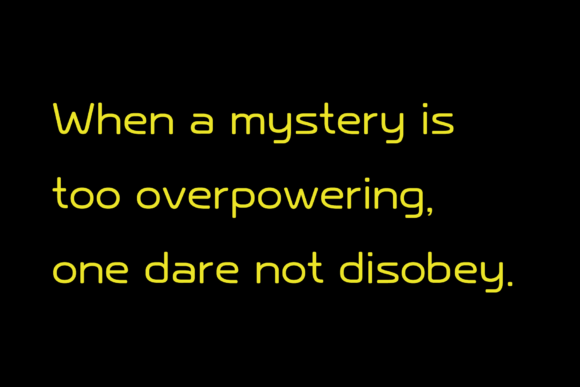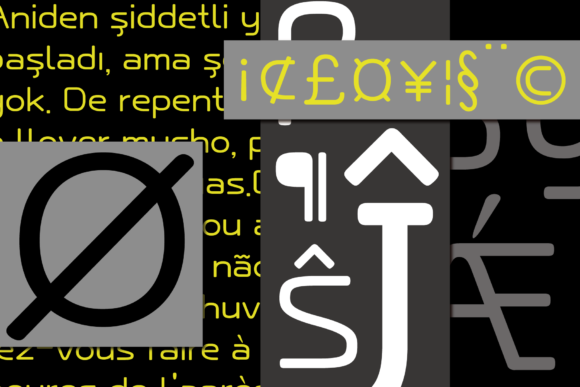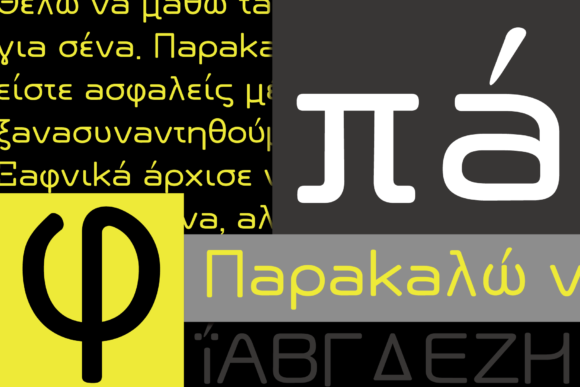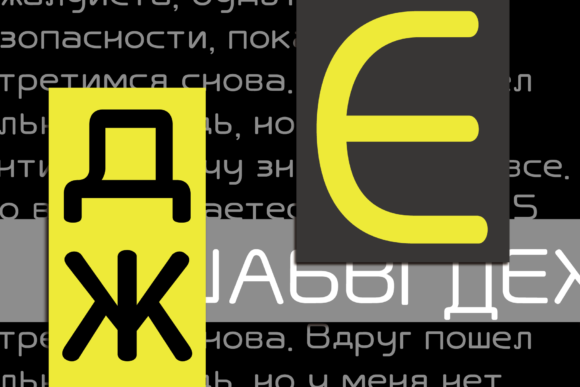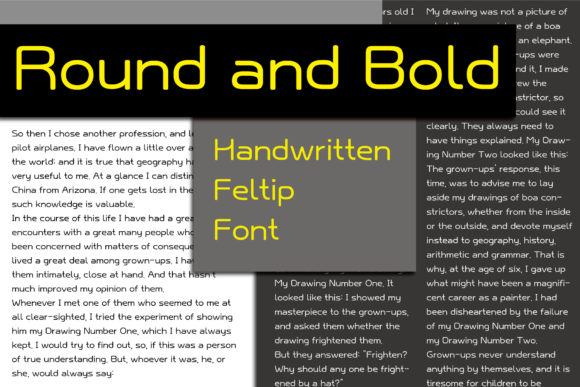
Discover the Story Behind HU Big Round Font
Have you ever stopped to think about the fonts that bring your digital messages to life? The way a font’s curves and lines can convey tone and personality, even when the words themselves are just a few simple characters. For designers, the right font can be the difference between a bland, forgettable message and a memorable one that grabs the reader’s attention. And that’s where HU Big Round Font comes in – a sans serif font designed to tell its own story through the way it looks.
With its unique blend of curves and straight lines, HU Big Round Font is more than just a font – it’s an experience. And for designers looking to add a little extra something to their digital creations, it’s a valuable tool that can help them stand out from the crowd.
HU Big Round Font Key Features
- Unique Characteristics: The font features rounded, smooth shapes and subtle rounded edges, making it ideal for creating a friendly and approachable atmosphere in designs.
- Style Options: The font is available in Regular and Bold styles, offering designers flexibility in creating different visual effects.
HU Big Round Font Review
I recently had the chance to work with the HU Big Round Font, and I have to say, it’s been an interesting experience. Here’s my honest review:
Firstly, I love the playful and whimsical feel of this font. It’s perfect for creating a friendly and approachable atmosphere in your designs. The rounded shapes and smooth curves make it a joy to work with, and the font is highly customizable, allowing you to tweak the size, color, and style to suit your needs.
- It may not be suitable for formal or professional designs, as it can come across as too playful or childish.
- The font may not be as legible at smaller sizes, which could be a concern if you’re planning to use it for body text.
In conclusion, the HU Big Round Font is a great choice for designers looking to add a touch of whimsy to their projects. While it may have some limitations, it’s a versatile and fun font that can add a lot of character to your designs. I’d definitely recommend it for creative projects or personal branding, but it may not be the best choice for more formal or professional work.
Practical Application Guide: HU Big Round Font
For optimal results, use the HU Big Round Font in conjunction with bold or italic text to create visual interest. This font is particularly effective for use in headings, titles, and logos. It’s also suitable for use in social media graphics, posters, and flyers.